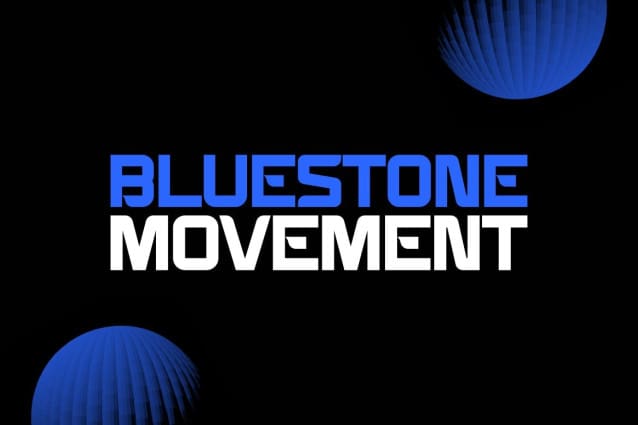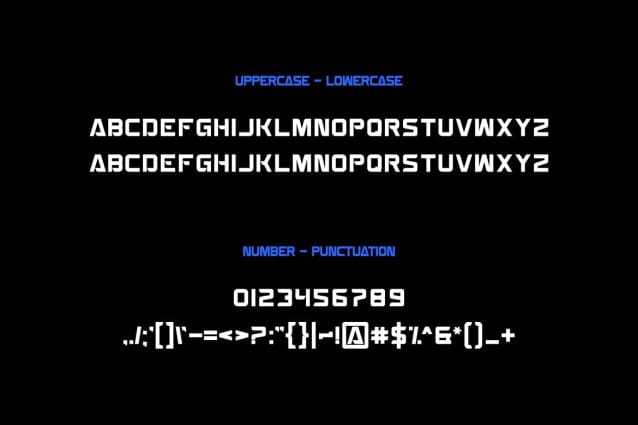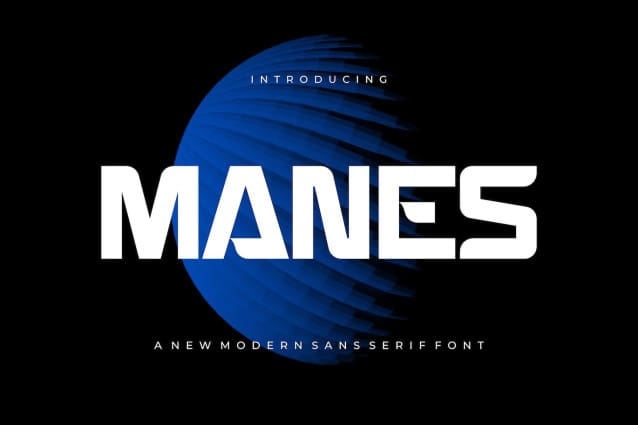
Manes Font
Manes Font – Modern Font is a simple and authentic display font. Suitable for any design needs : logo, branding, modern advertising design, logos, poster quote, book / cover Title, editorial design, website / blog, card, t-shirts,…